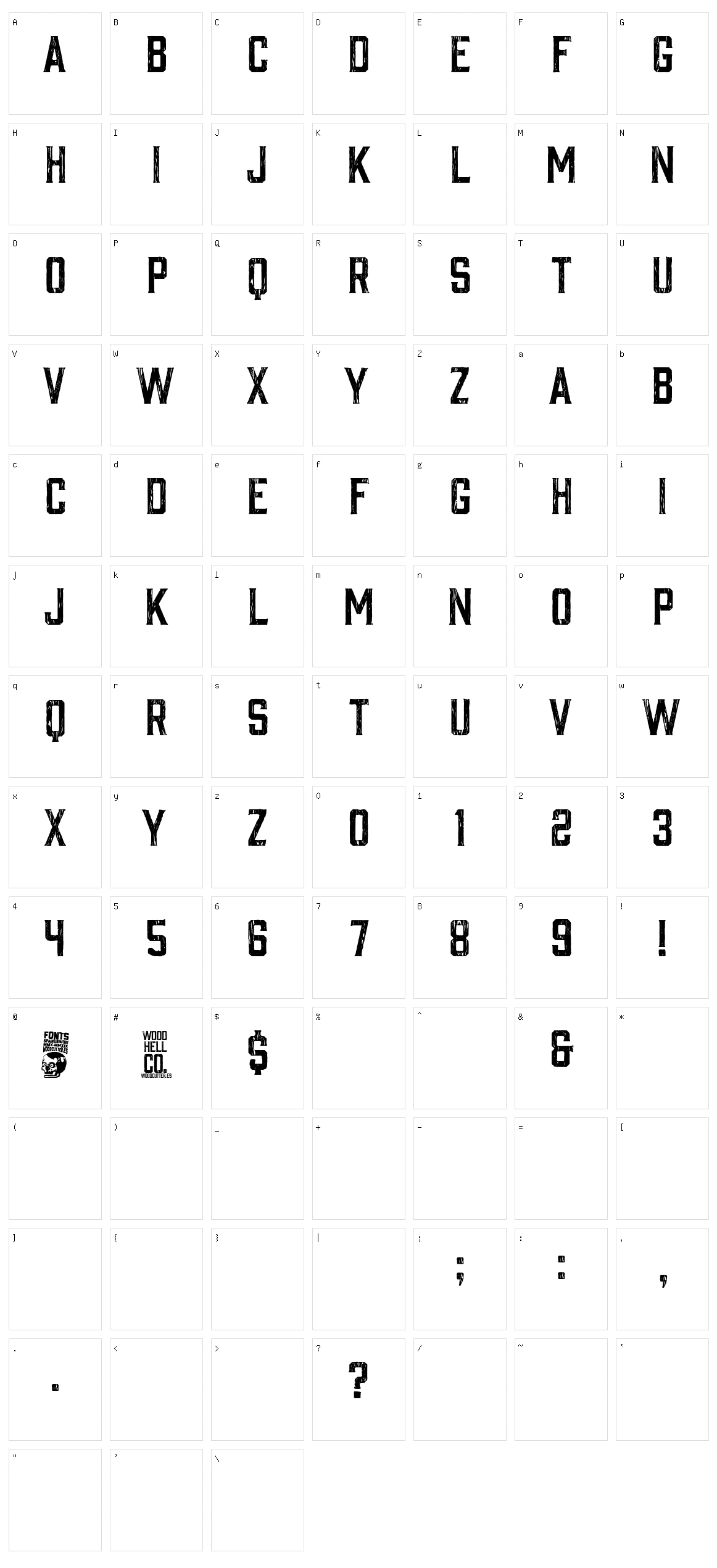
The free font Wood Hell Company is carefully designed by Woodcutter, showcasing a thoughtful balance of creativity and usability and falls under the Retro font style. When you download the ZIP file, it contains only 118.42 KB of font files, making it lightweight and quick to download. Please review the license details below to understand permitted usage and distribution rights. If license information is not available, we recommend using this font for personal projects only or contacting the author directly for commercial usage permissions.